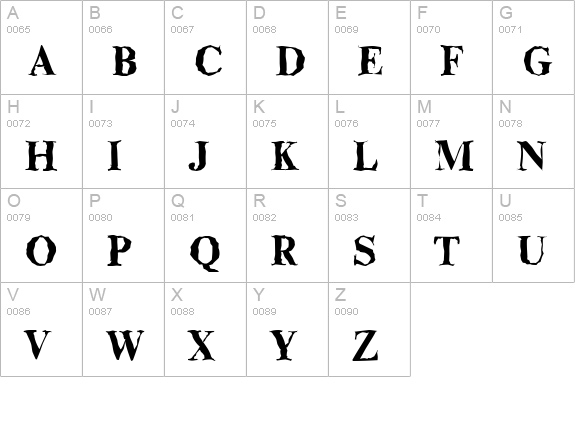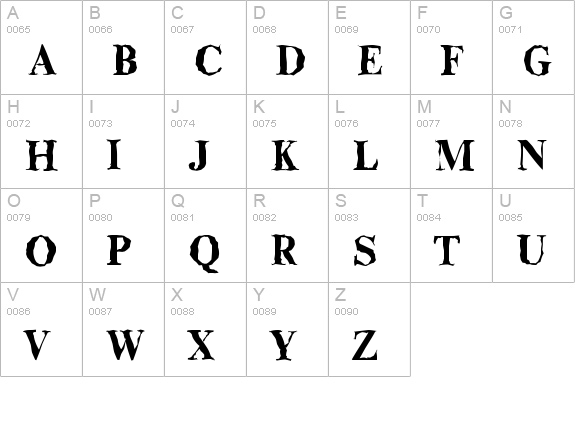
ThamesRandom-Bold Font Details
ThamesRandom-Bold is a strong, high-contrast variant in the ThamesRandom typeface family \xE2\x80\x94 well suited to headlines, attention-grabbing titles, and strong calls-to-action.
ThamesRandom-Bold is a bold and dynamic font that exudes a sense of modernity and sophistication. Its strong and distinctive letterforms make it perfect for creating eye-catching headlines, logos, and other design projects that require a bold statement. The unique randomness of the letter shapes adds an element of playfulness and creativity to any design. This versatile font is free to download at FontsMarket.com, making it easily accessible for designers looking to add a touch of boldness to their projects. Whether you're working on a branding project, poster design, or website layout, ThamesRandom-Bold is sure to make a bold impact and help your designs stand out from the crowd.